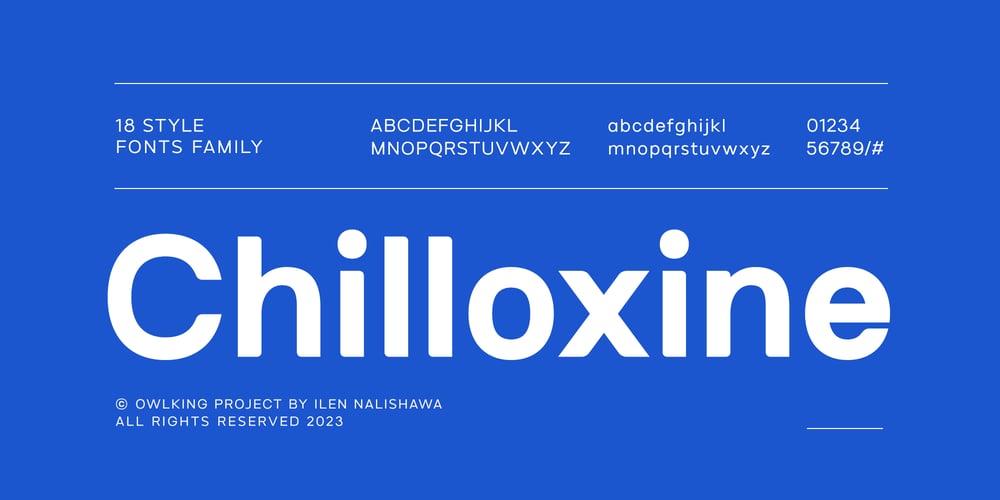
Chilloxine
Chilloxine font
Chilloxine Font Family was designed by Darhilen and published by Owl king project. Chilloxine contains 18 styles and family package options. Chilloxine is a clean font with detailed edges combined with sharp corners and one side with rounded corners. font with 18 families that bring more varied thickness and slope, with many style choices in one family, the font is very good to use for logos, titles headlines, & can even work well for text. Chilloxine is very minimalist with a clean form and is more professional.